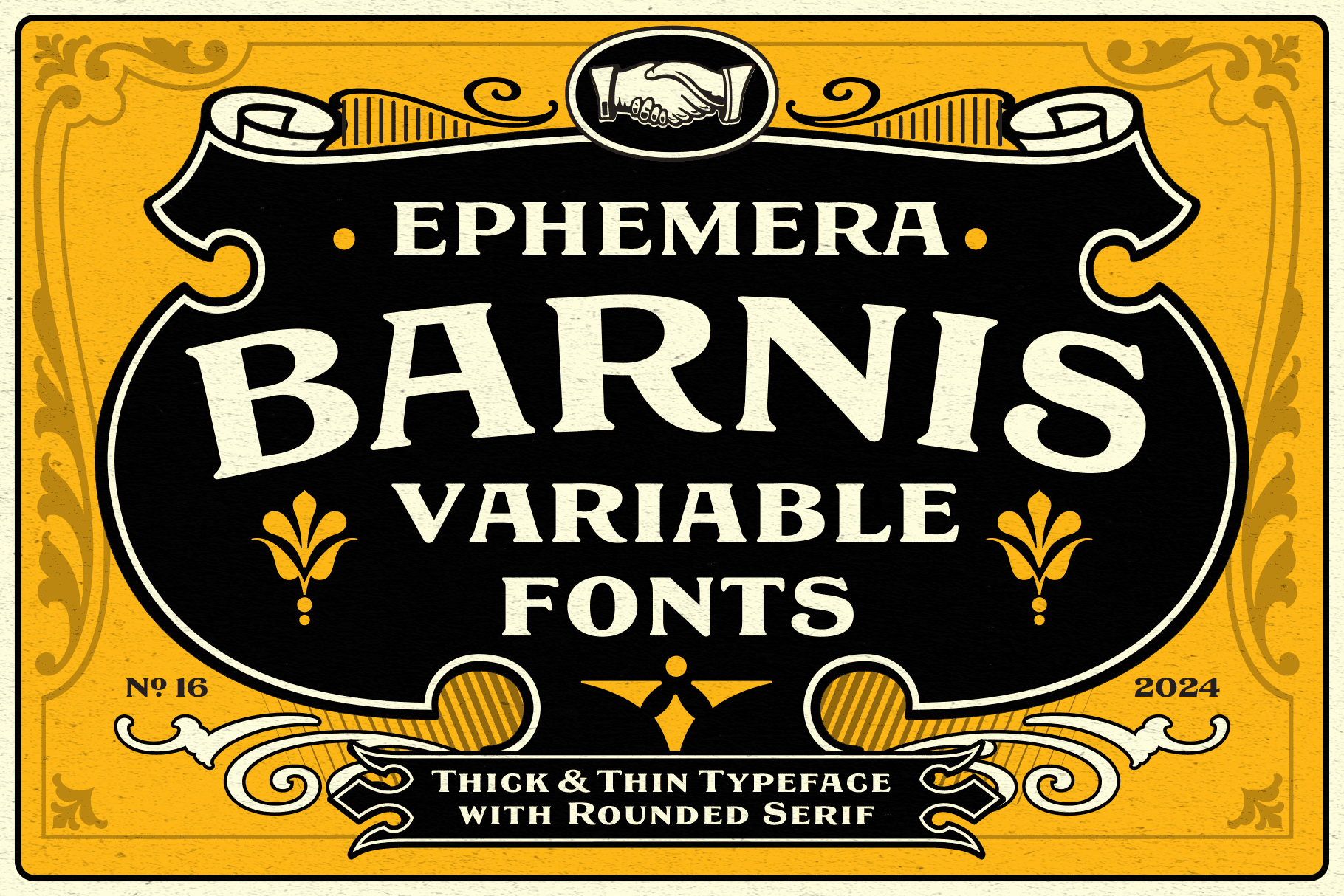
EFCO Barnis - Variable Fonts
A vintage display typeface with rounded serifs, inspired by classic advertising signs evoking a sense of rustic authenticity and old-world elegance. Its timeless charm adds character to any project. Ideal for logos, headlines, labels, posters, signage, and any application demanding impactful typography to underscore your message. This typeface comes with 5 static fonts and 1 variable font with weight axes for easy customization